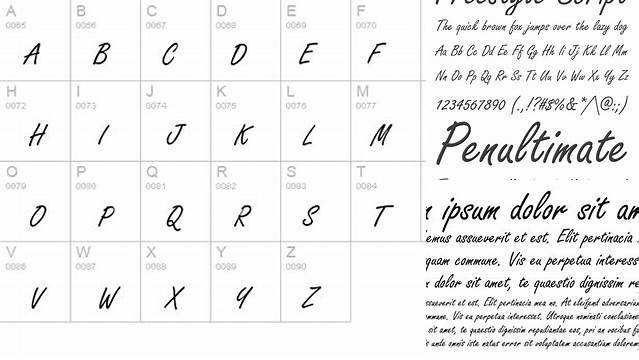
Freestyle Script Font: Free Downloads & Usage Guide
Are you looking to add a touch of elegance and fluidity to your design projects? The Freestyle Script font family might just be what you need. Known for its flowing lines and distinctive calligraphic style, Freestyle Script has been a favorite among designers for decades. This comprehensive guide will walk you through everything you need to know about the Freestyle Script font family, including its history, characteristics, usage, and, most importantly, where to find free downloads. Whether you're a seasoned designer or just starting, understanding and utilizing this font can significantly enhance your creative work.
What is Freestyle Script?
Freestyle Script is a typeface designed by Martin Wait in 1981. It is characterized by its right-slanted, connecting script style, which gives it a dynamic and handwritten appearance. The font was initially created for Letraset, a company known for its dry-transfer lettering. Over the years, Freestyle Script has become widely recognized and used in various design applications. Its unique aesthetic makes it particularly suitable for projects that require a personal and informal touch. Think of invitations, greeting cards, branding materials, and even advertising campaigns—wherever a sense of handwritten charm is desired, Freestyle Script fits right in. It's a versatile font that bridges the gap between traditional calligraphy and modern design, making it a staple in many designers' toolkits. The font's popularity is also due to its availability across different platforms and its relatively simple yet elegant design, ensuring that it remains relevant even in today's rapidly evolving design landscape. For those looking to infuse their projects with warmth and personality, Freestyle Script offers a compelling and timeless option. The subtle nuances in each character's form contribute to its overall appeal, setting it apart from more generic script fonts. Whether you're aiming for a vintage feel or a contemporary twist, Freestyle Script can be adapted to suit a wide range of creative visions, making it a valuable asset for any design endeavor.
Key Characteristics of Freestyle Script
When we talk about the key characteristics of Freestyle Script, several features stand out. The most noticeable is its right-slanted posture, giving it a sense of forward motion and energy. Unlike more formal scripts, Freestyle Script has a relaxed, almost carefree vibe, which makes it perfect for projects aiming for a friendly and approachable feel. The connecting strokes are another defining feature; each letter seamlessly flows into the next, creating a continuous, handwritten effect. This fluidity is what gives Freestyle Script its distinctive calligraphic style, setting it apart from blockier or more rigid fonts. Furthermore, the varying thickness of the strokes adds depth and visual interest. Thicker strokes emphasize certain parts of the letters, while thinner strokes create delicate connections, contributing to the font's overall elegance. The rounded terminals on many characters soften the appearance, making it less harsh and more inviting. In terms of readability, Freestyle Script strikes a good balance between style and clarity. While it's undoubtedly a decorative font, it remains legible enough for short to medium-length text, especially when used in larger sizes. However, it's generally not recommended for body text in books or lengthy articles, as the intricate details can become tiring to read over extended periods. The font also includes a range of special characters and ligatures, allowing designers to further customize the look and feel. These additional elements can be used to enhance the handwritten quality and add unique flourishes to the text. All these characteristics combine to make Freestyle Script a versatile and appealing choice for a wide variety of design projects. Its ability to convey both elegance and informality makes it a go-to font for designers seeking to add a personal touch to their work.
How to Use Freestyle Script Effectively
To use Freestyle Script effectively, consider the context of your project. This font shines in scenarios where you want to convey a sense of elegance, informality, or a personal touch. It's excellent for invitations, greeting cards, and branding materials where a handwritten feel is desired. However, it's crucial to avoid overuse. Freestyle Script is best used sparingly, as too much can make your design look cluttered and overwhelming. Think of it as a decorative element rather than a workhorse for body text. When incorporating Freestyle Script into your designs, pay attention to the size and spacing. Because of its intricate details, it generally looks better in larger sizes, allowing the nuances of the letterforms to be appreciated. Adjust the letter spacing (tracking) and line height (leading) to ensure readability. Too little spacing can make the text look cramped, while too much can make it appear disjointed. Experiment with different color combinations to see what works best with Freestyle Script. Generally, it pairs well with simple, clean fonts for contrast. Using it alongside a sans-serif font can create a balanced and modern look. Avoid pairing it with other overly decorative fonts, as this can create visual chaos. Consider the overall tone of your design. Freestyle Script is versatile but not suitable for every situation. It might not be the best choice for projects that require a serious or professional tone, such as legal documents or technical manuals. Instead, reserve it for projects where you want to inject some personality and warmth. Finally, be mindful of cultural connotations. While Freestyle Script is widely recognized and appreciated, its handwritten style may not translate well in all cultures. Do some research to ensure that your design is appropriate for your target audience. By considering these factors, you can harness the full potential of Freestyle Script and create designs that are both visually appealing and effective in conveying your message.
Alternatives to Freestyle Script
If you're looking for alternatives to Freestyle Script, several fonts offer a similar aesthetic while providing some unique twists. One popular option is Brush Script MT. Like Freestyle Script, it has a flowing, handwritten style, but it tends to be a bit bolder and more assertive. This can make it a good choice if you want a script font with a bit more presence. Another alternative is Mistral, which also has a dynamic, slanted appearance. Mistral is known for its slightly rough edges, giving it a more raw and authentic feel. It's a great option if you want to convey a sense of spontaneity and energy. Edwardian Script ITC is another elegant choice. While it's more formal than Freestyle Script, it shares a similar calligraphic quality. Edwardian Script is perfect for projects that require a touch of sophistication and refinement. For a more modern take on the handwritten style, consider Pacifico. This font has a rounded, friendly appearance, making it ideal for designs that aim for a casual and approachable vibe. Pacifico is particularly well-suited for web design and digital applications. If you're looking for something a bit more whimsical, Lobster is a great option. Lobster has a vintage feel with its condensed letterforms and elaborate swashes. It's perfect for creating eye-catching headlines and logos. Finally, consider Scriptina, which is known for its dramatic loops and flourishes. Scriptina is a highly decorative font that's perfect for adding a touch of glamour to your designs. When choosing an alternative, consider the specific needs of your project. Think about the overall tone you want to convey, the readability requirements, and the context in which the font will be used. By exploring these alternatives, you can find the perfect font to complement your design and achieve your desired effect.
The Freestyle Script font family is a valuable asset for any designer looking to add a touch of elegance and informality to their work. Its distinctive handwritten style makes it perfect for a wide range of projects, from invitations to branding materials. While finding free downloads requires caution, there are legitimate sources available if you know where to look. By understanding the key characteristics of Freestyle Script and how to use it effectively, you can harness its full potential and create designs that are both visually appealing and effective in conveying your message. And if Freestyle Script isn't quite the right fit, there are plenty of alternatives to explore, each with its unique charm and character. So go ahead, experiment with different options, and discover the perfect font to bring your creative vision to life. Whether you stick with Freestyle Script or venture into new typographic territories, the key is to choose a font that resonates with your design goals and helps you connect with your audience on a personal level. Happy designing, guys!